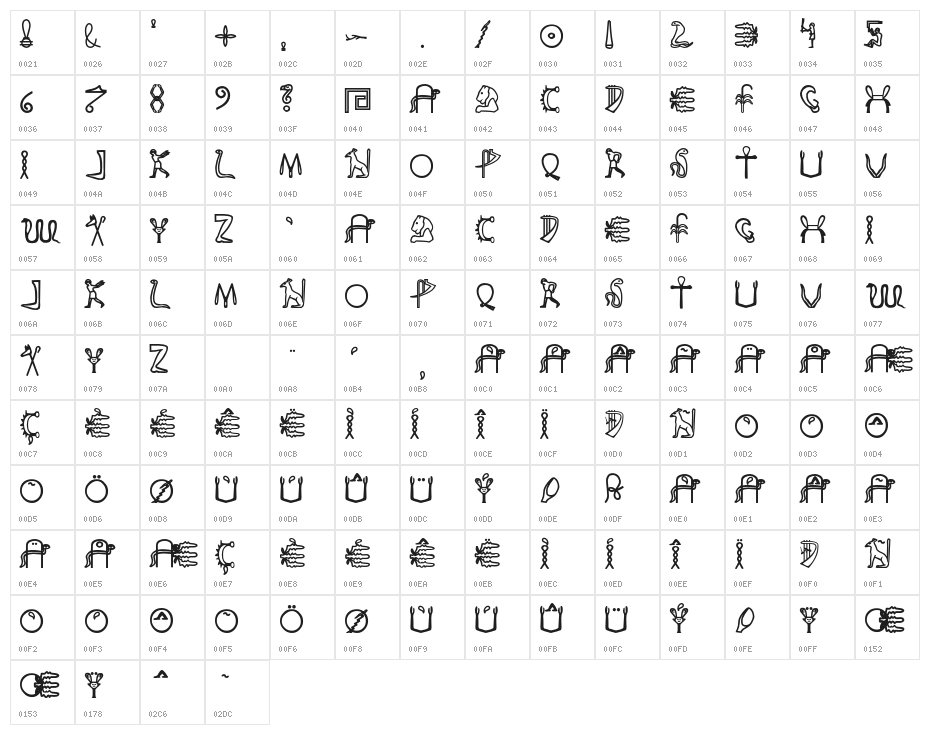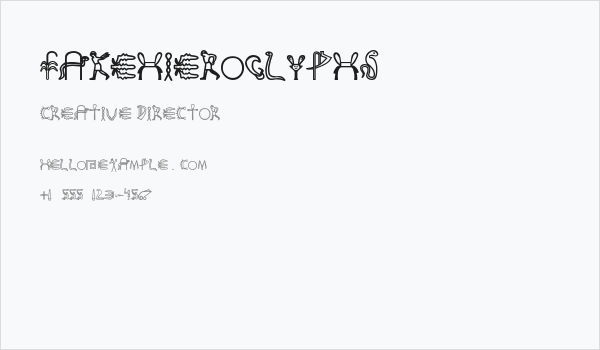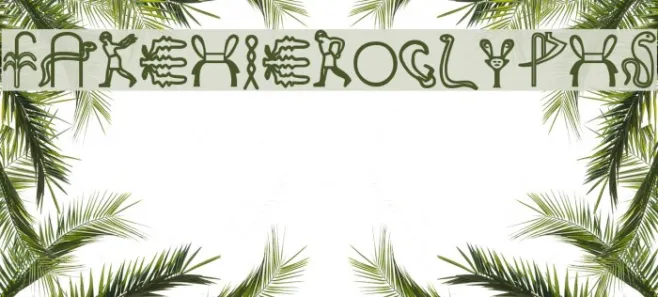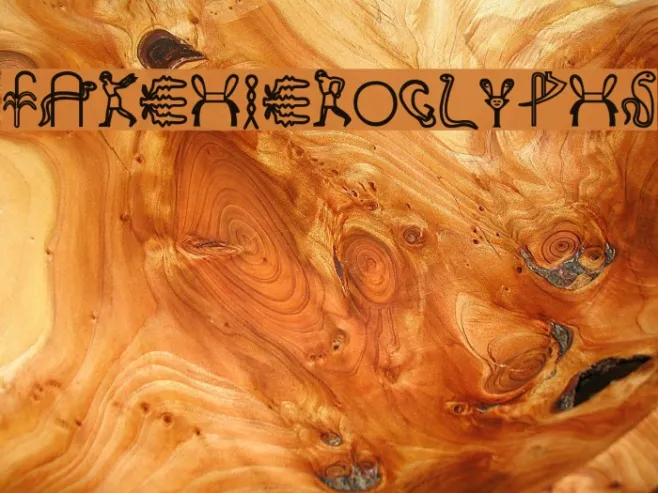
FakeHieroglyphs Font
FakeHieroglyphs Description
This font is a creative and decorative typeface inspired by ancient hieroglyphs. Each character is uniquely designed to resemble symbols and figures from ancient scripts, incorporating elements like animals, tools, and abstract shapes. The uppercase and lowercase letters maintain a consistent theme, with intricate details that give a sense of historical and cultural depth. The numerals and special characters follow the same stylistic approach, making the font cohesive and visually striking. Its artistic and unconventional design makes it suitable for projects that require a touch of mystery and antiquity.
| Use Case | Logos, Posters, Artistic Projects |
| Proposed Projects | Ideal for themed posters, historical event invitations, educational materials about ancient cultures, or artistic projects requiring a unique and exotic typeface. |